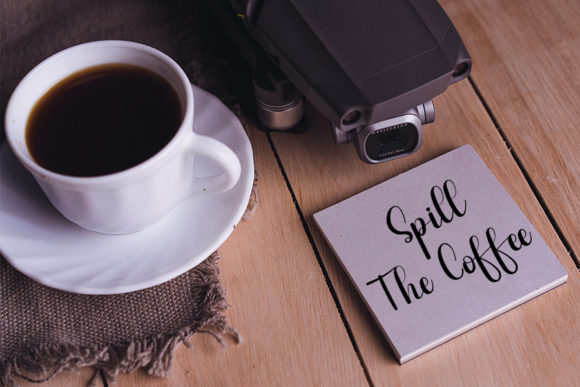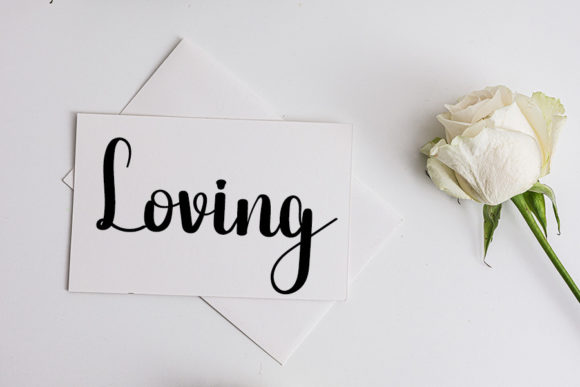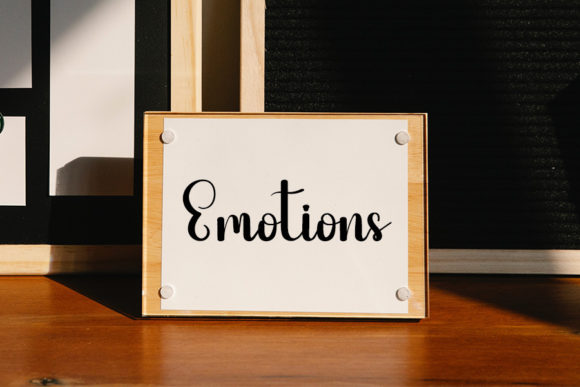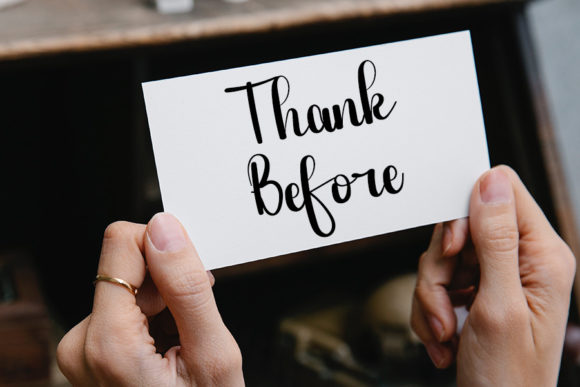
Bleach Font: Elevate Your Designs with a Timeless Classic
In the world of typography, a well-crafted font can elevate your design projects from ordinary to extraordinary. Introducing Bleach Font, a stylish handwritten font that embodies a contemporary atmosphere and impeccable form, inspired by timeless classic calligraphy. In this article, we’ll dive into the world of Bleach Font, exploring its features, benefits, and uses, perfect for designers and crafters looking to add a touch of elegance to their creations.
The Inspiration Behind Bleach Font
Bleach Font draws inspiration from traditional calligraphy, with a modern twist. The result is a balanced and varied font that exudes sophistication and refinement. The creators of Bleach Font aimed to craft a typeface that would bring a sense of luxury and high-end quality to design projects, making it perfect for those seeking to add a touch of classic elegance to their work.
Key Features of Bleach Font
- Handwritten with a personal touch: Bleach Font boasts a unique, handwritten feel that adds a personal touch to your designs.
- Contemporary atmosphere: With its clean lines and modern aesthetic, Bleach Font brings a fresh, contemporary vibe to your projects.
- Impeccable form: The font’s precise craftsmanship ensures that every letter and character is meticulously designed for maximum legibility and visual appeal.
- Balanced and varied: Bleach Font offers a range of characters and glyphs, allowing for creative flexibility and versatility in your designs.
Benefits of Using Bleach Font
So, why choose Bleach Font for your design projects? Here are just a few benefits:
- Elegance and sophistication: Bleach Font adds a touch of luxury and refinement to your designs, perfect for high-end branding, packaging, and marketing materials.
- Versatility: With its wide range of characters and glyphs, Bleach Font can be used for a variety of design applications, from headings and titles to body text and quotes.
- Easy to read: The font’s clear, legible design ensures that your message is conveyed with clarity and impact.
- Unique and distinctive: Bleach Font’s handwritten feel sets it apart from more traditional fonts, giving your designs a distinctive edge.
Using Bleach Font in Your Designs
So, how can you incorporate Bleach Font into your design workflow? Here are a few ideas to get you started:
- Branding and logos: Use Bleach Font to create elegant, high-end logos and branding materials that exude sophistication and refinement.
- Packaging and labels: Add a touch of luxury to your packaging designs with Bleach Font, perfect for premium products and high-end packaging.
- Marketing materials: Use Bleach Font in your marketing materials, such as brochures, flyers, and posters, to add a touch of elegance and sophistication.
- Digital designs: Incorporate Bleach Font into your digital designs, such as website headers, social media graphics, and email marketing campaigns.
In conclusion, Bleach Font is a stylish handwritten font that offers a unique blend of classic elegance and modern sophistication. With its impeccable form, balanced and varied design, and wide range of characters and glyphs, Bleach Font is the perfect choice for designers and crafters looking to elevate their design projects. Whether you’re working on branding, packaging, marketing materials, or digital designs, Bleach Font is sure to bring a touch of luxury and refinement to your creations.